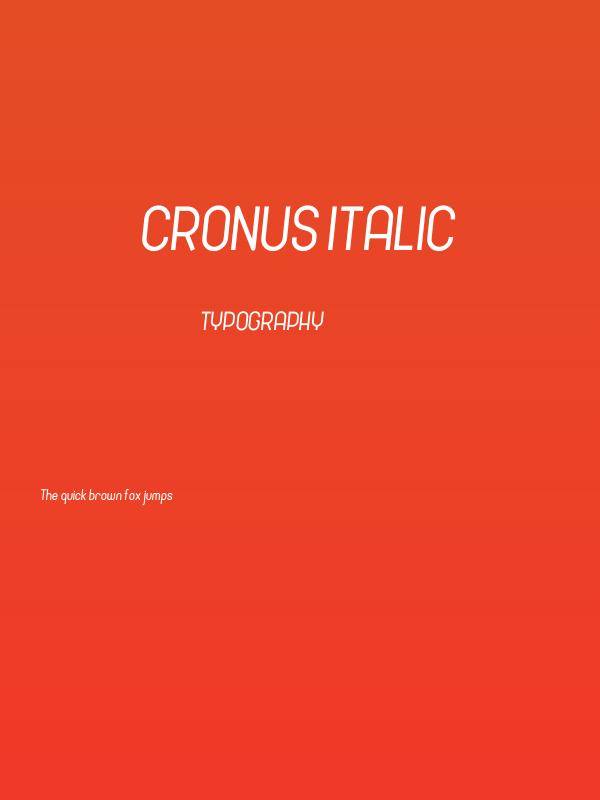
Cronus Italic Font
Cronus Italic Description
This font features a sleek and modern design with a slight italic slant, giving it a dynamic and forward-moving appearance. The characters are uniformly structured with smooth curves and clean lines, creating a sense of elegance and readability. The uppercase letters are tall and slightly narrow, while the lowercase letters maintain a consistent height, providing a balanced look. The numerals are clear and distinct, ensuring easy readability. Special characters are well-defined, complementing the overall aesthetic. This font's style is suitable for contemporary design projects, offering a professional yet approachable feel.